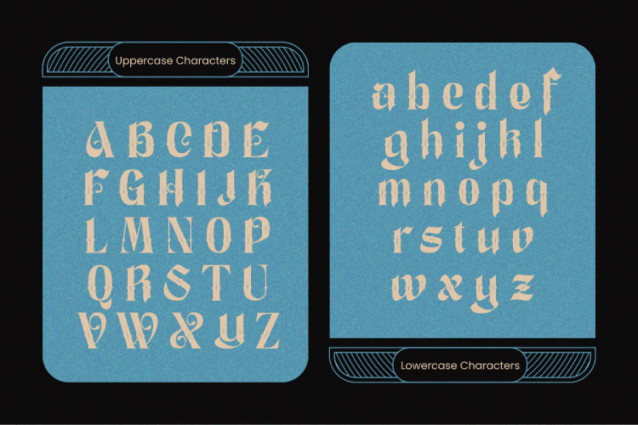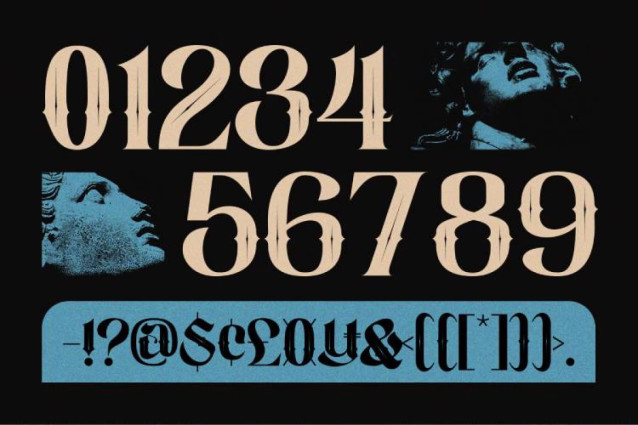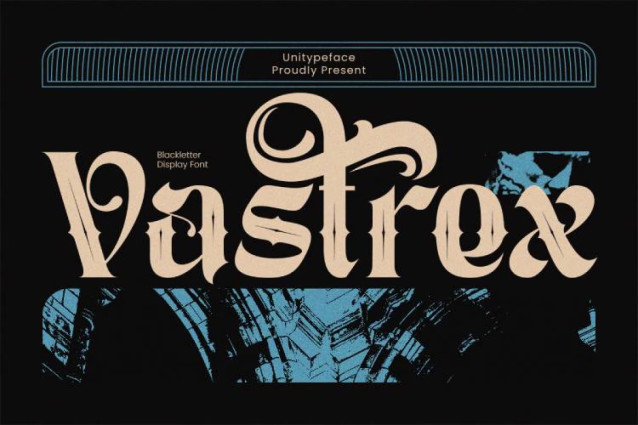
Vastrex Font
Vastrex Font is a unique, stylish and elegant vintage blackletter font. This typeface will look truly outstanding in a wide range of contexts.